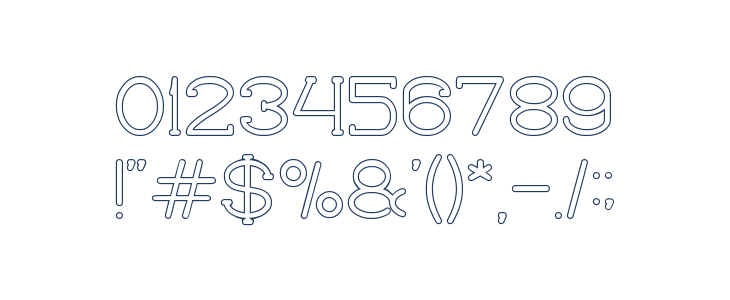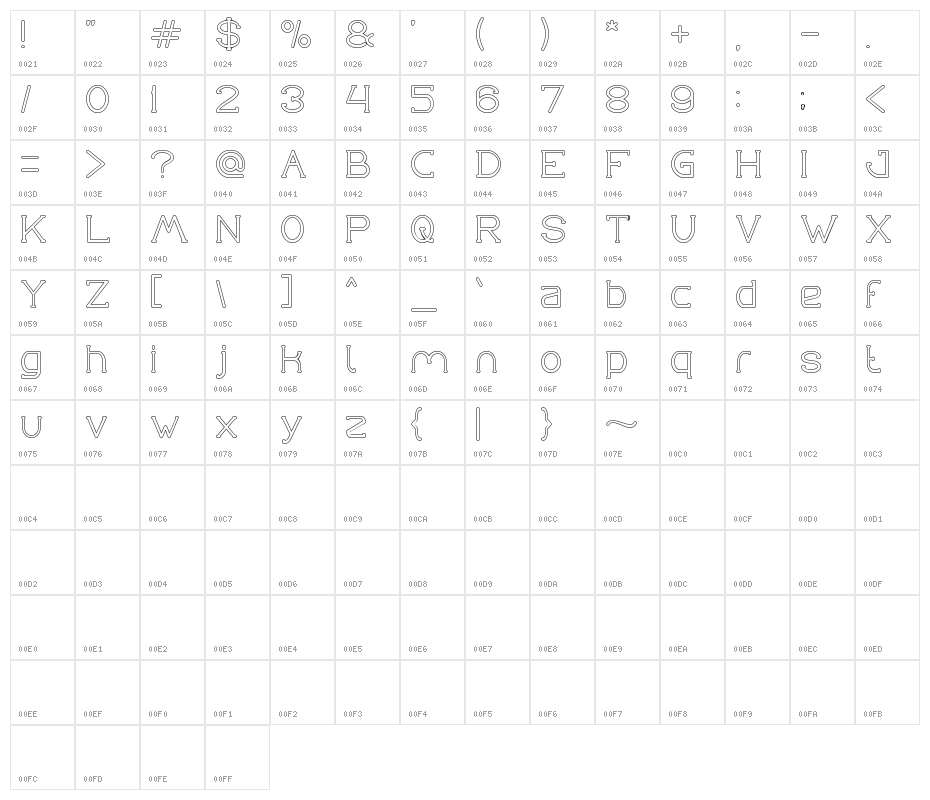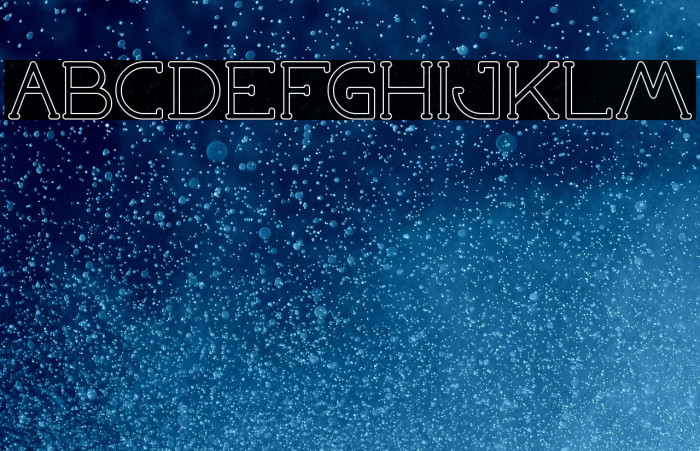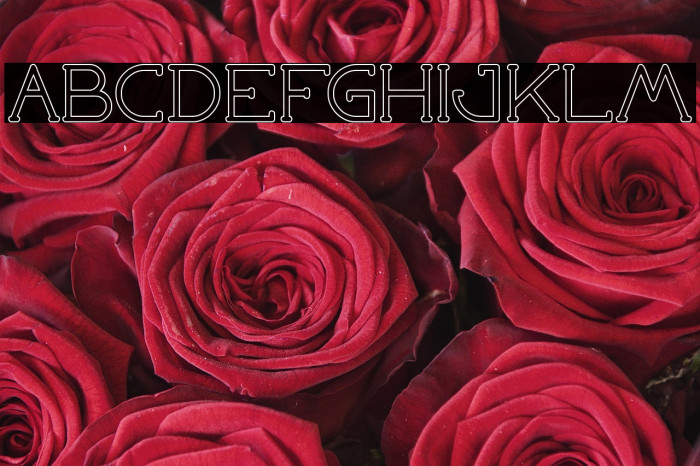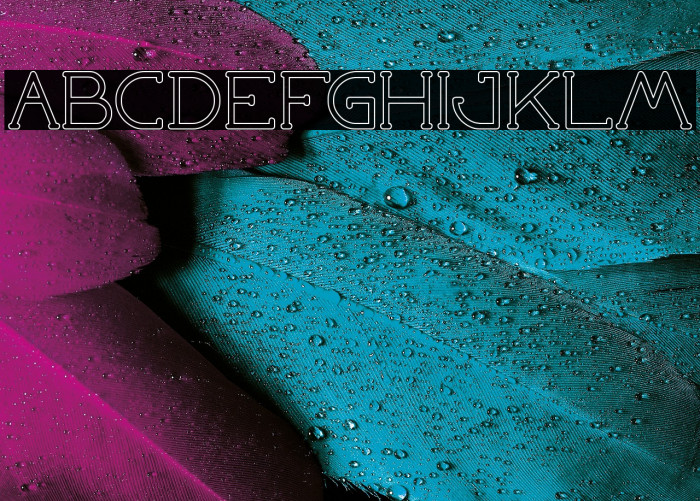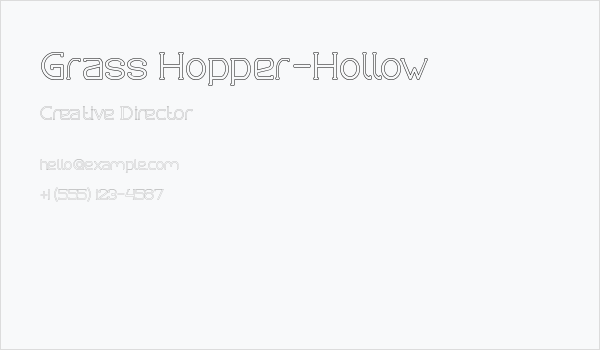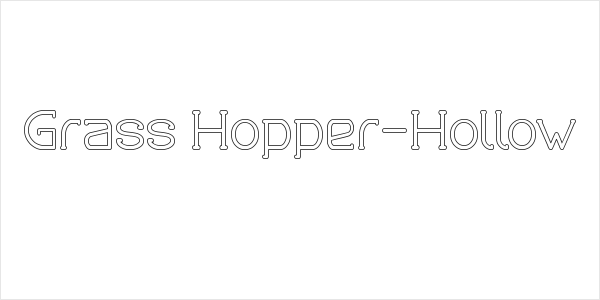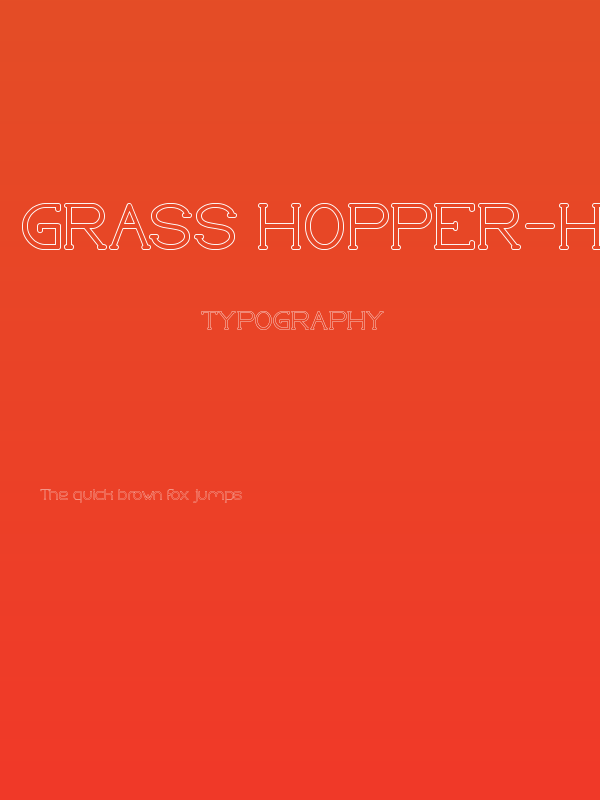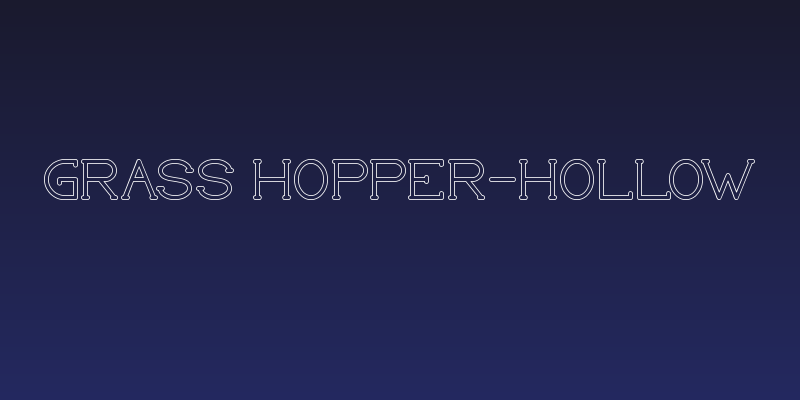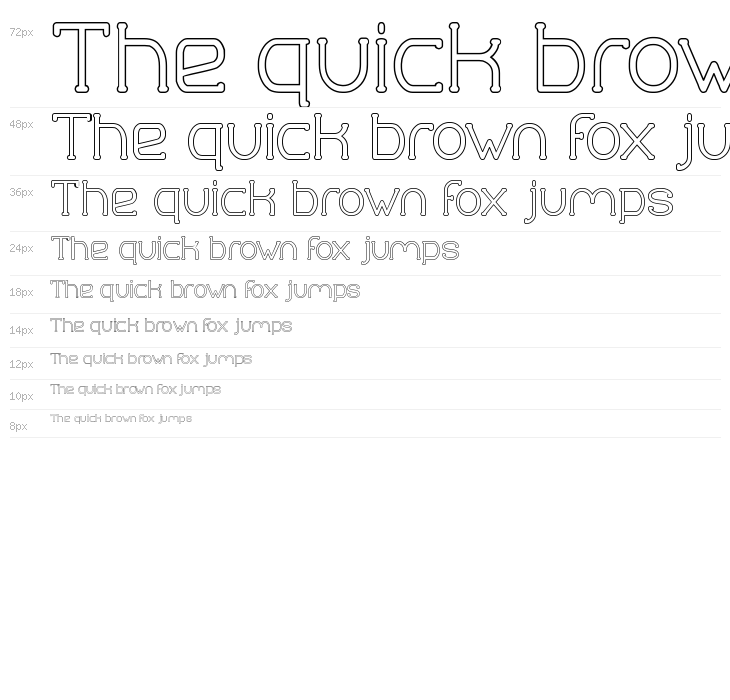
Grass Hopper-Hollow Font
Grass Hopper-Hollow Description
This font features a unique hollow design with a modern and playful aesthetic. The characters are outlined, giving them a three-dimensional appearance that stands out against any background. The uppercase and lowercase letters maintain a consistent style, with rounded edges and a geometric structure. The numerals and special characters follow the same design principles, ensuring a cohesive look across all text elements. This font is particularly eye-catching due to its open, airy feel, making it suitable for creative and artistic projects.